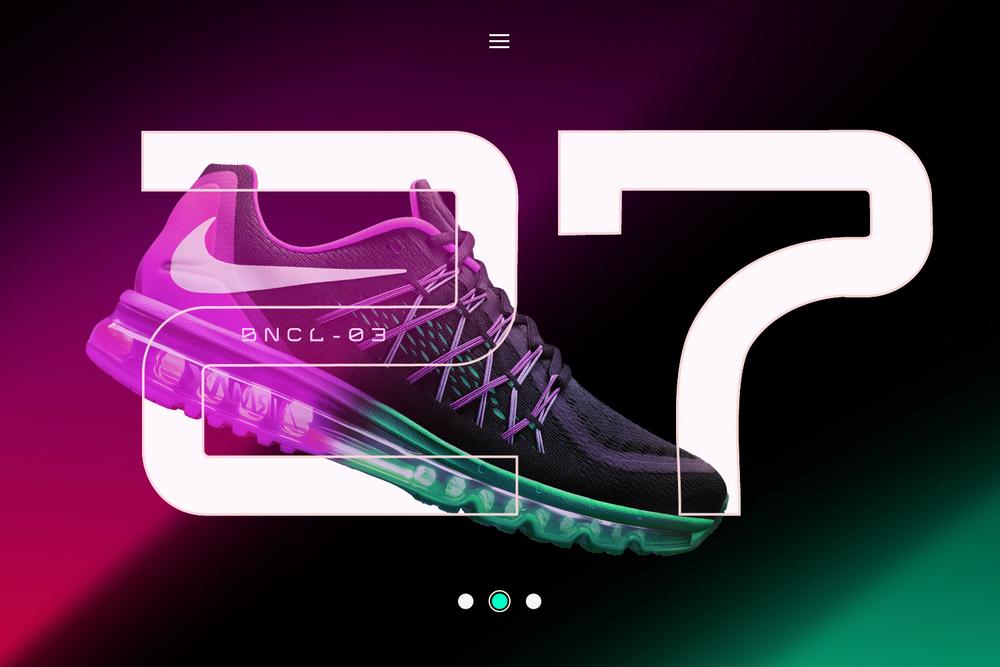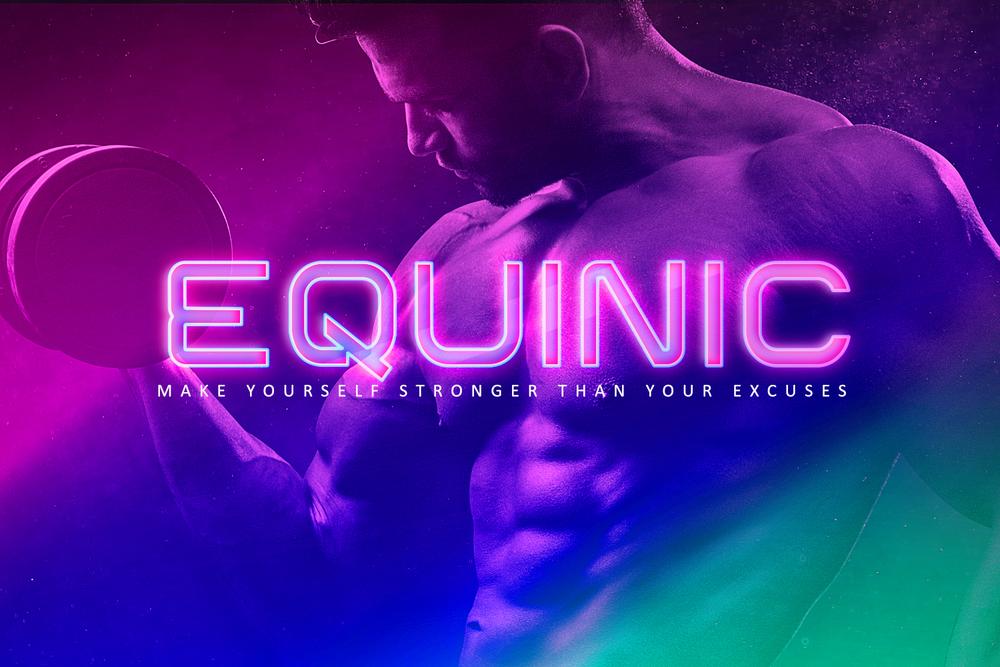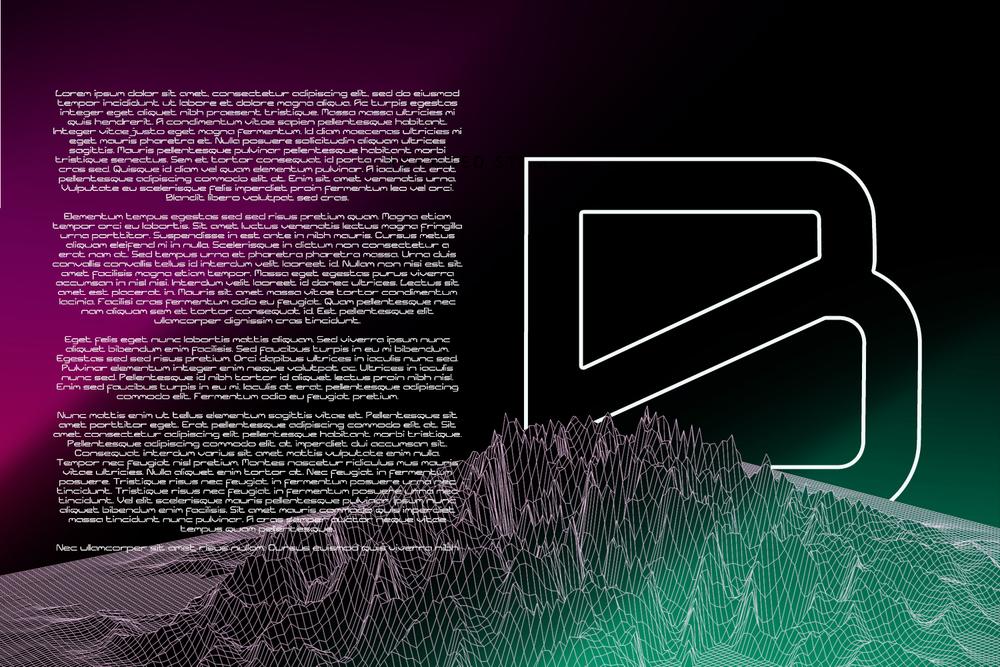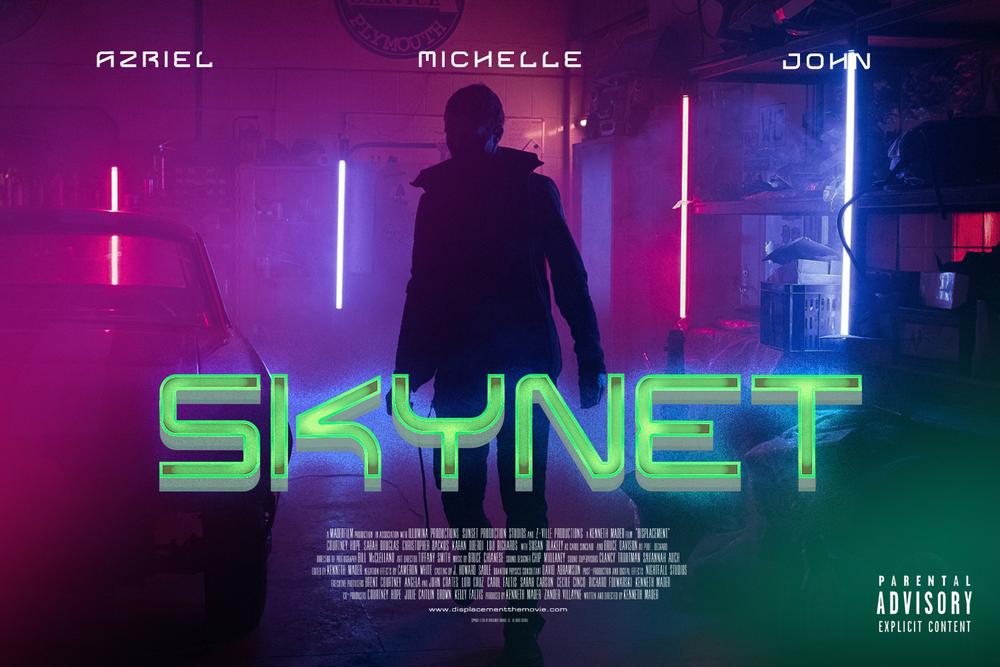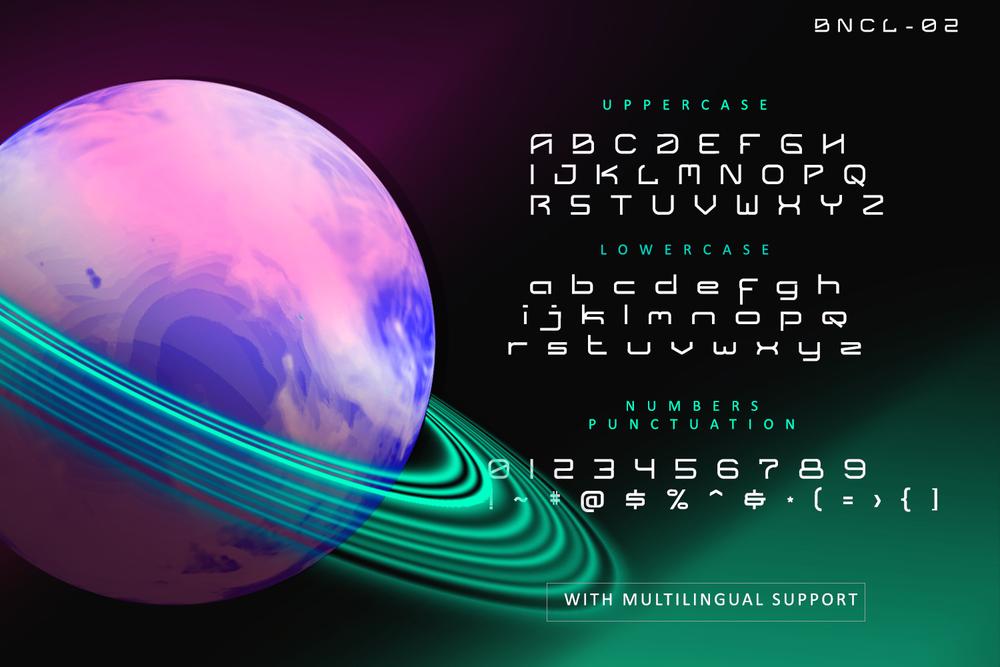
Bionical is a wide, starkly futuristic Font family. The design is based on squares which were popular in earlier techno fonts, and the super-elliptical stroke ends give Bionical a harmonized appearance. A perfect choice to use on logos, labels, posters, packaging, books, movies, presentations, games, and much more! 𝑾𝒉𝒂𝒕 𝒚𝒐𝒖’𝒍𝒍 𝒈𝒆𝒕 ➺ Bionical-Bold ➺ Bionical-Normal ➺ Bionical-Light